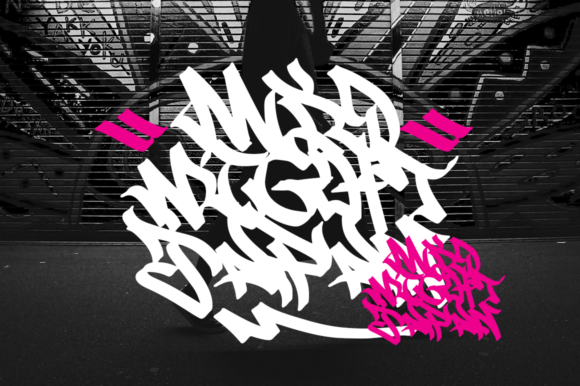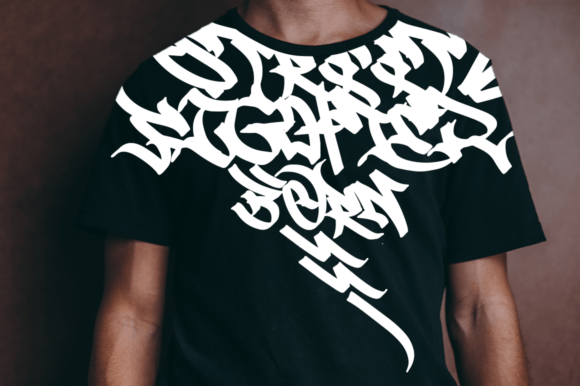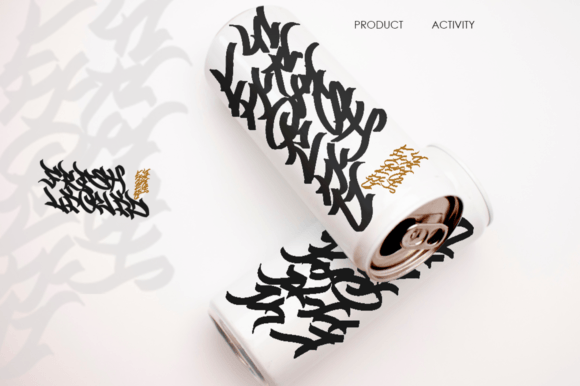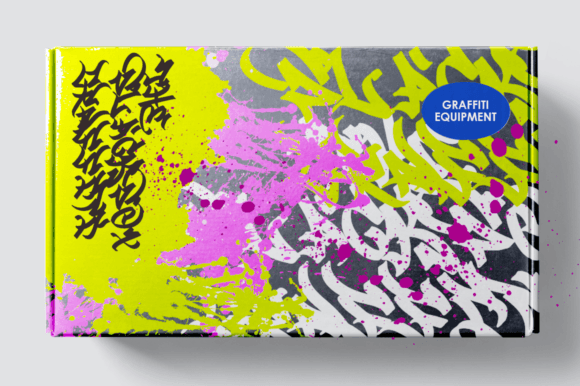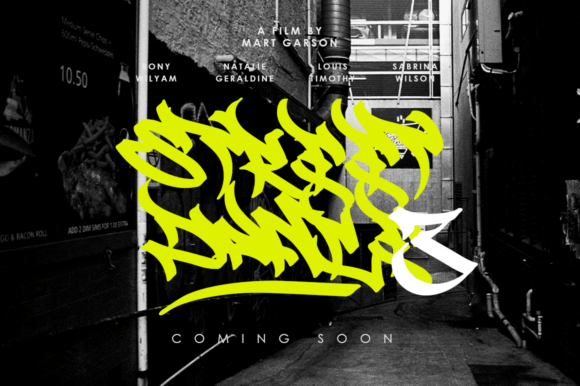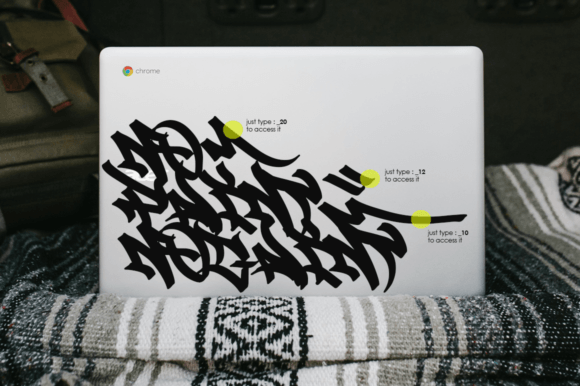
Introduction to Snoopy Swap Font
Blank River is a graffiti blackletter display font Inspired by Hip Hop and graffiti street art.
It is suitable for modern designs in the style of urban art or street art, it ill elevate a wide range of design projects to the highest level, be it branding, headings, signatures, logos, labels, and much more This font is PUA encoded which means you can access all of the amazing glyphs and ligatures with ease.